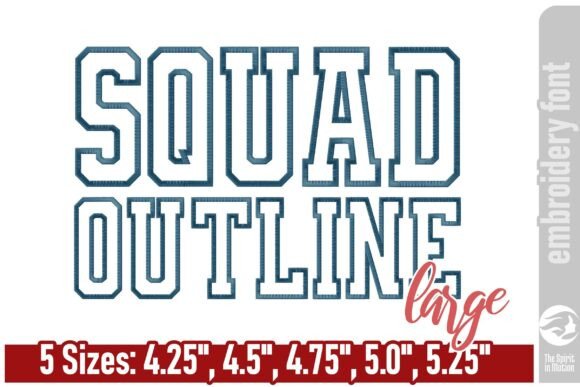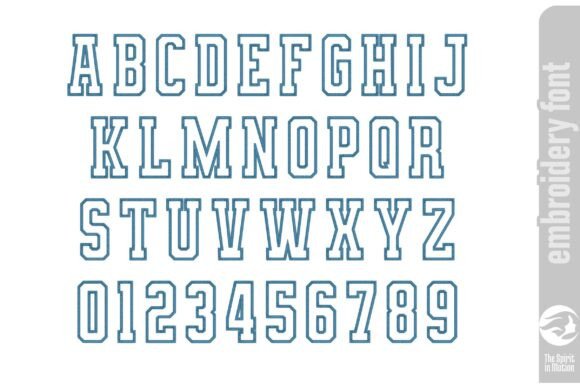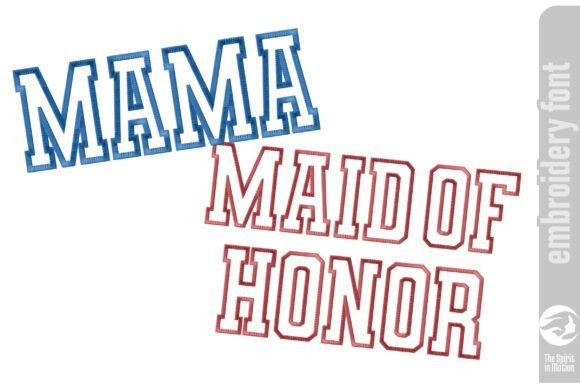
Squad Outline Embroidery Font - Large
Squad Outline Embroidery Font – Large
Squad Outline is a narrow varsity-style embroidery font featuring clean satin stitch outlines. With bold, sporty lettering and a modern collegiate look, this font is perfect for team uniforms, school spirit gear, athletic designs, and custom apparel. It includes uppercase letters and numbers, making it ideal for adding names, initials, or jersey-style text to your embroidery projects. Also suitable for bridal party and pre-wedding apparel. Squad Outline works beautifully on sweatshirts, bags, and more.